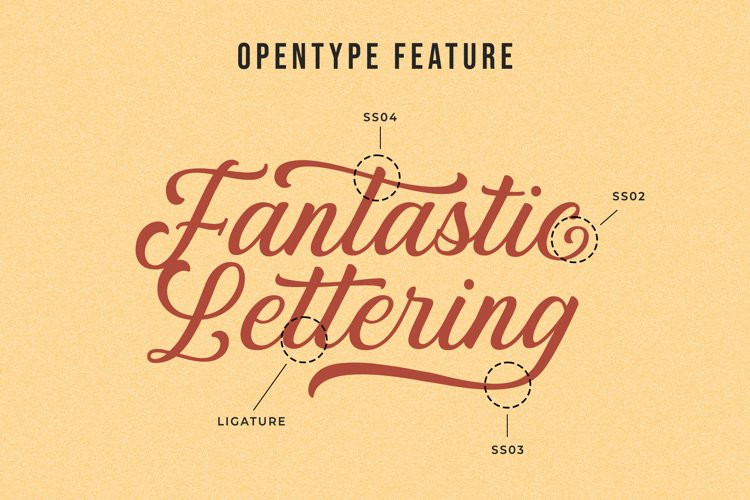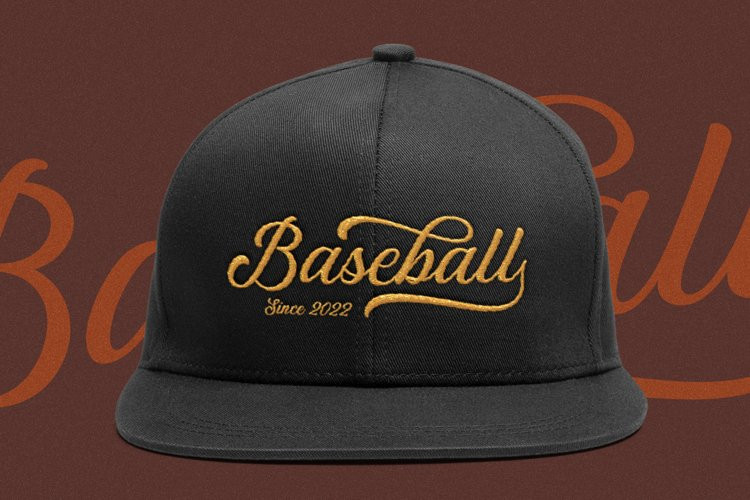
Heltyma Font
Heltyma FontHeltyma is a script with vintage look and feel. This font perfectly made to be applied especially in logo, and the other various formal forms such as invitations, labels, logos, magazines, books, greeting / wedding cards, packaging, fashion, make up, stationery, novels, labels and others.